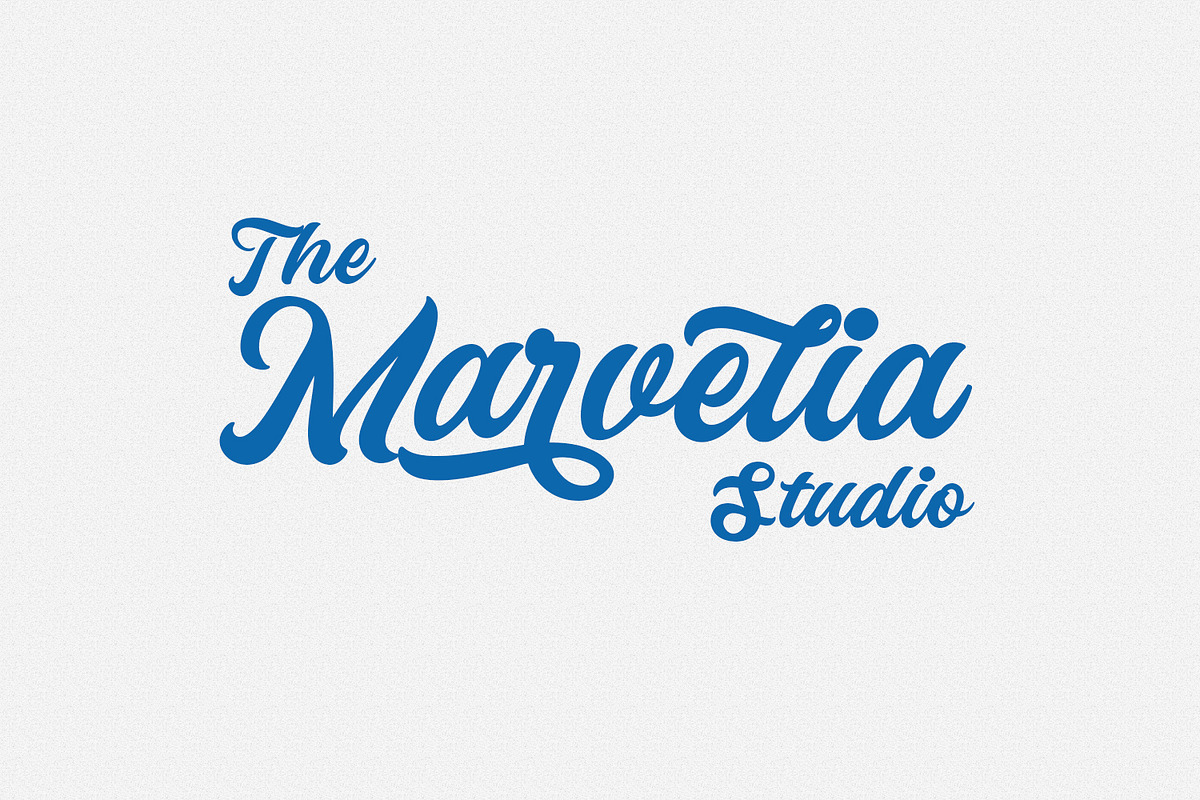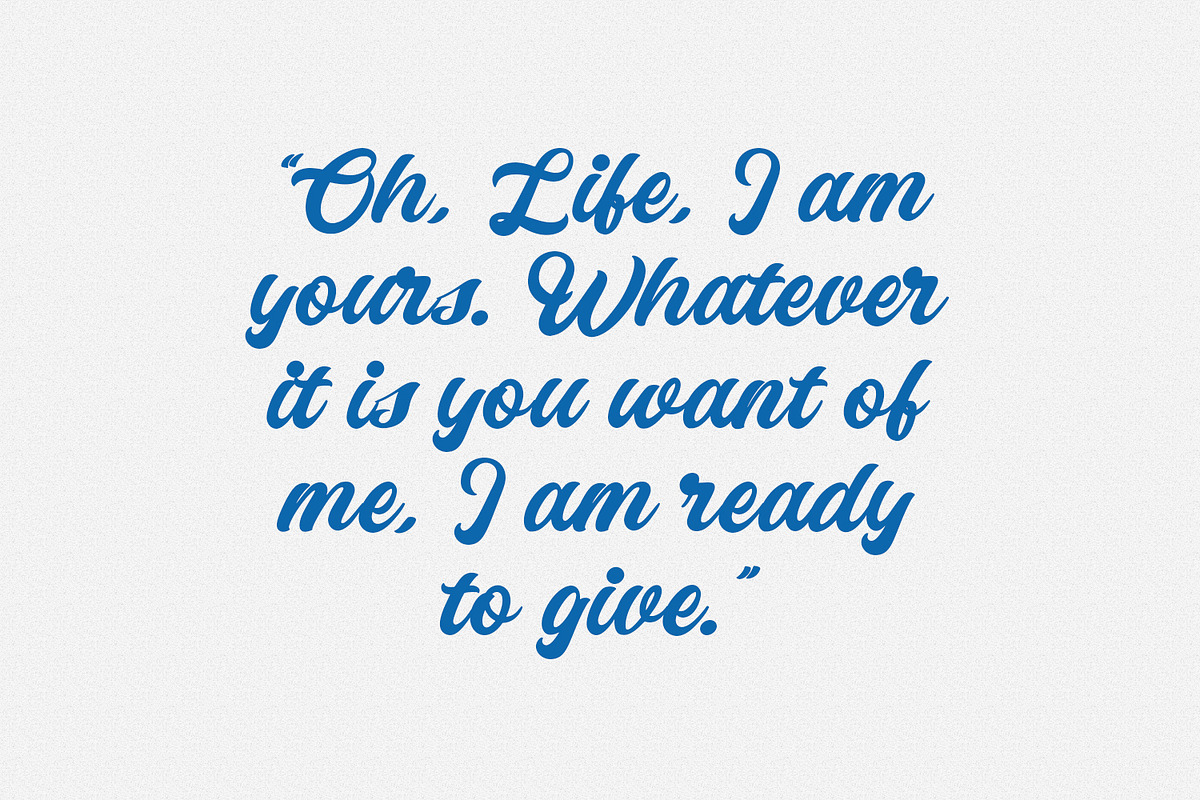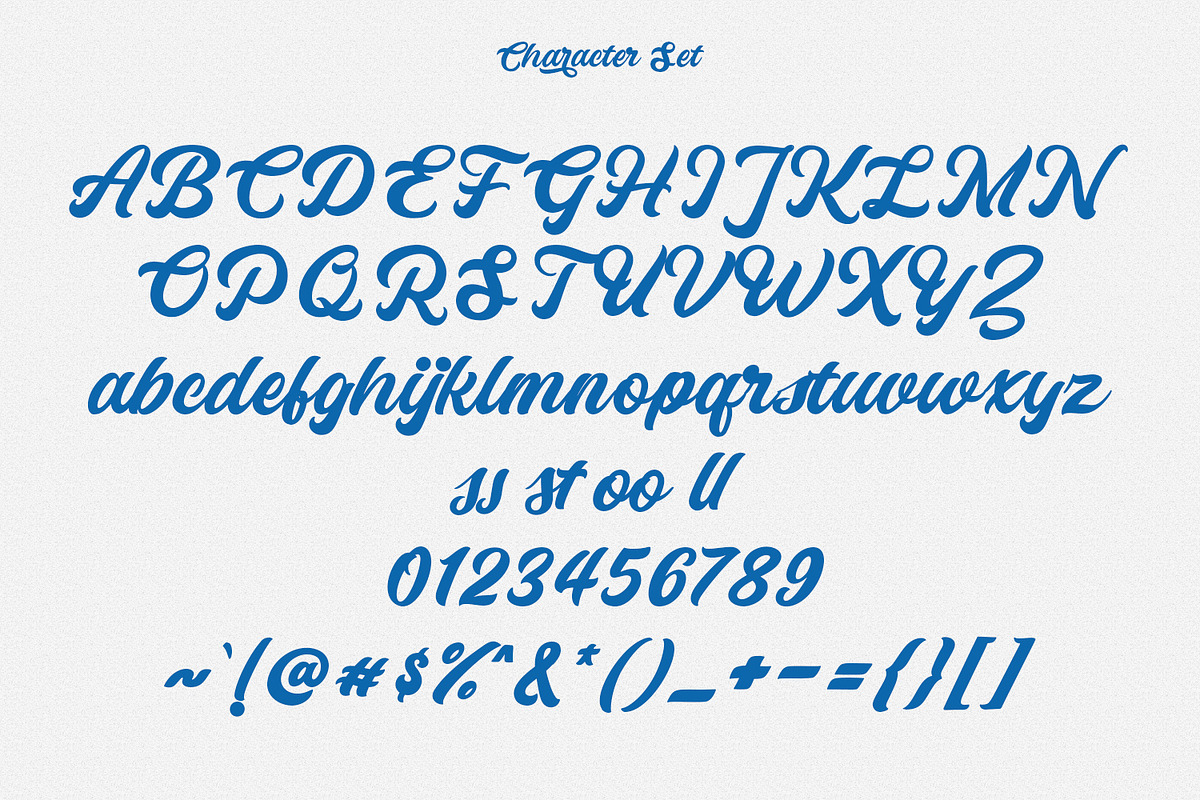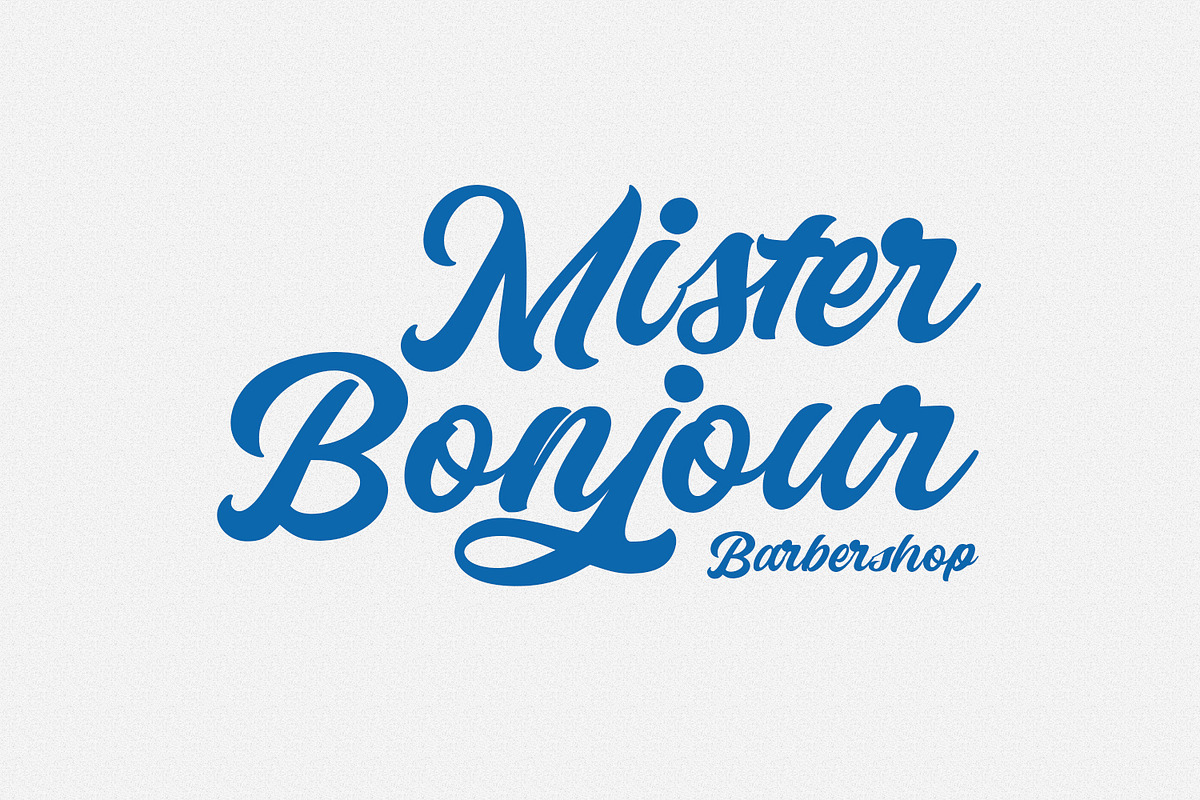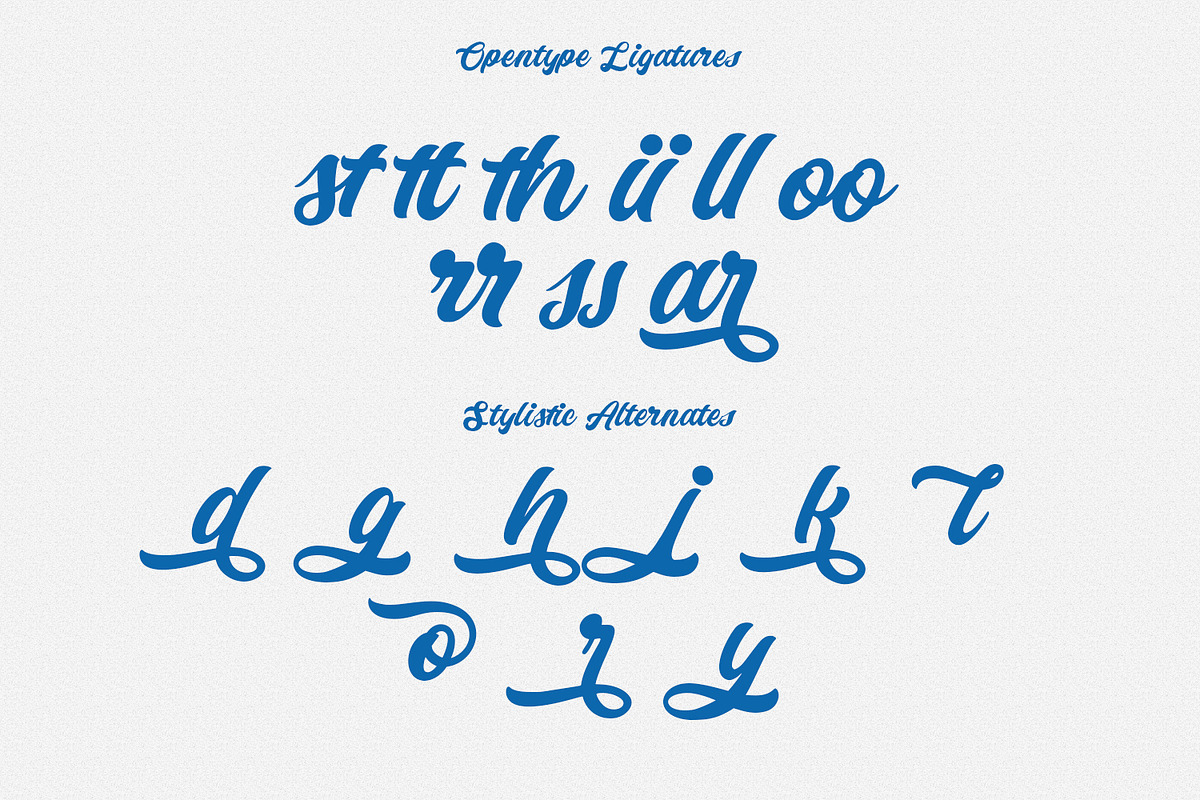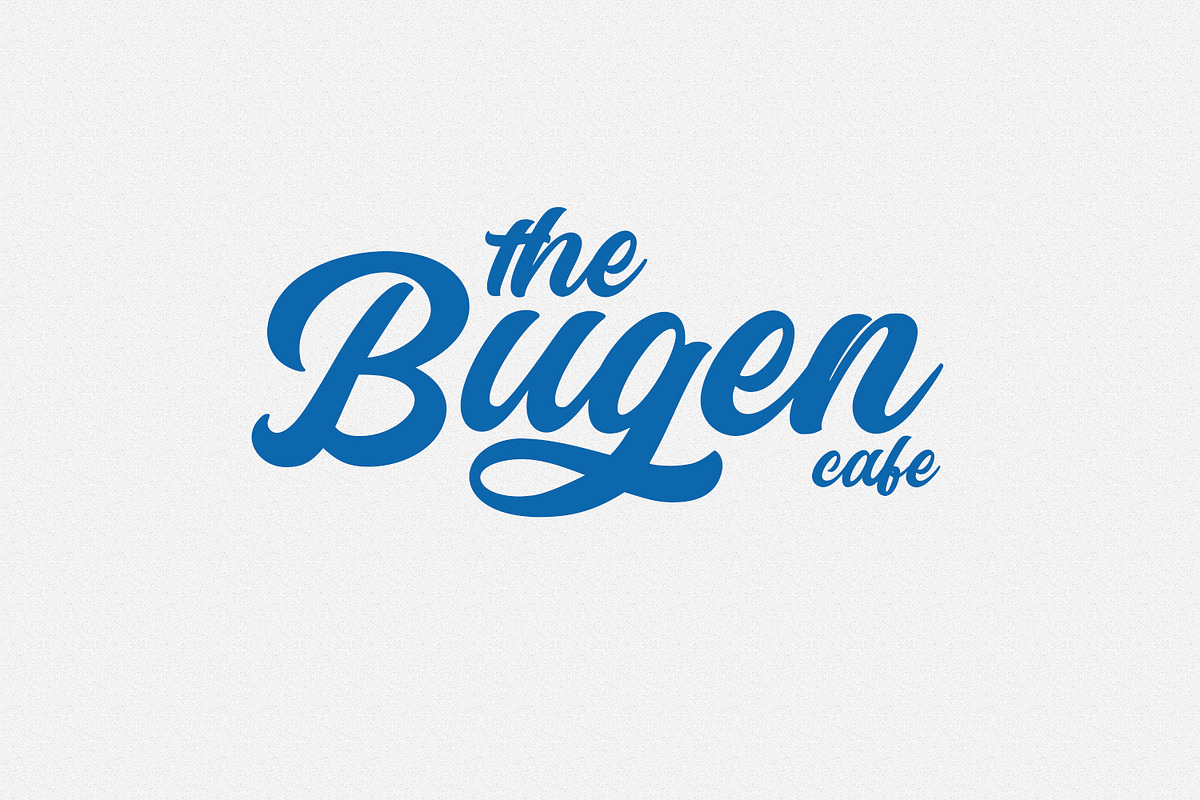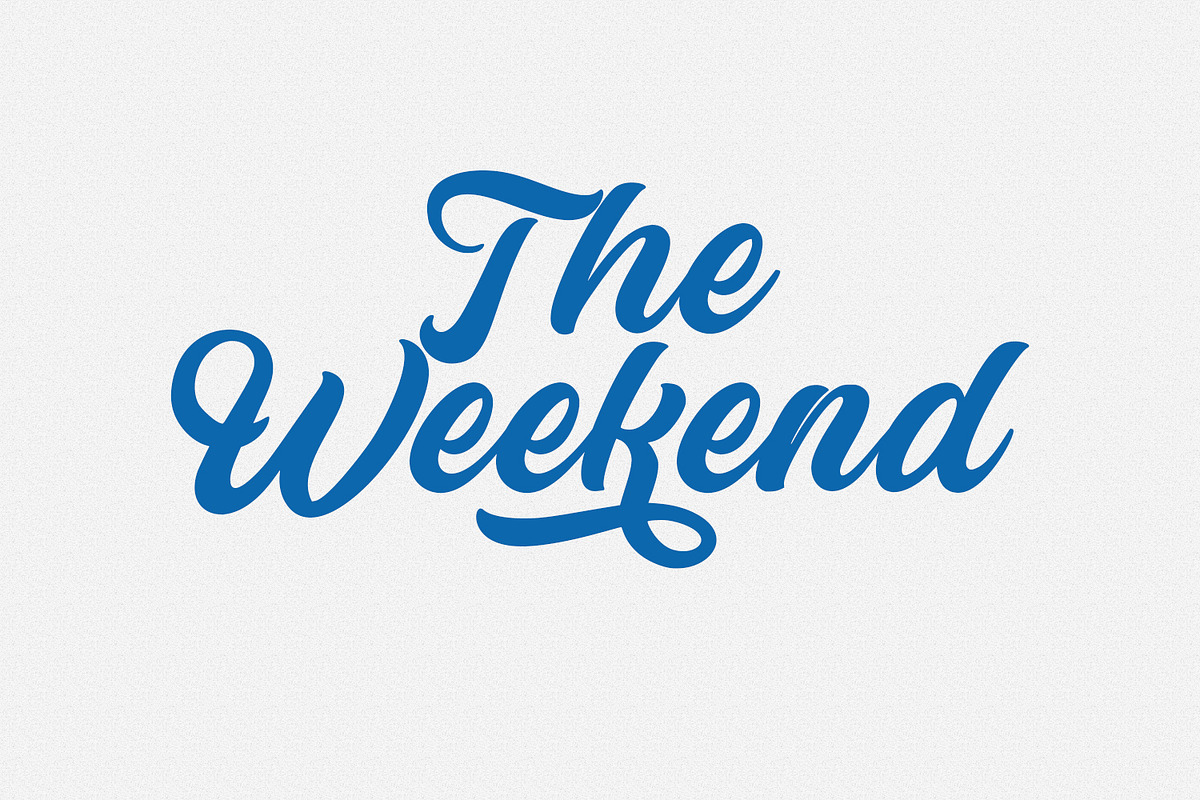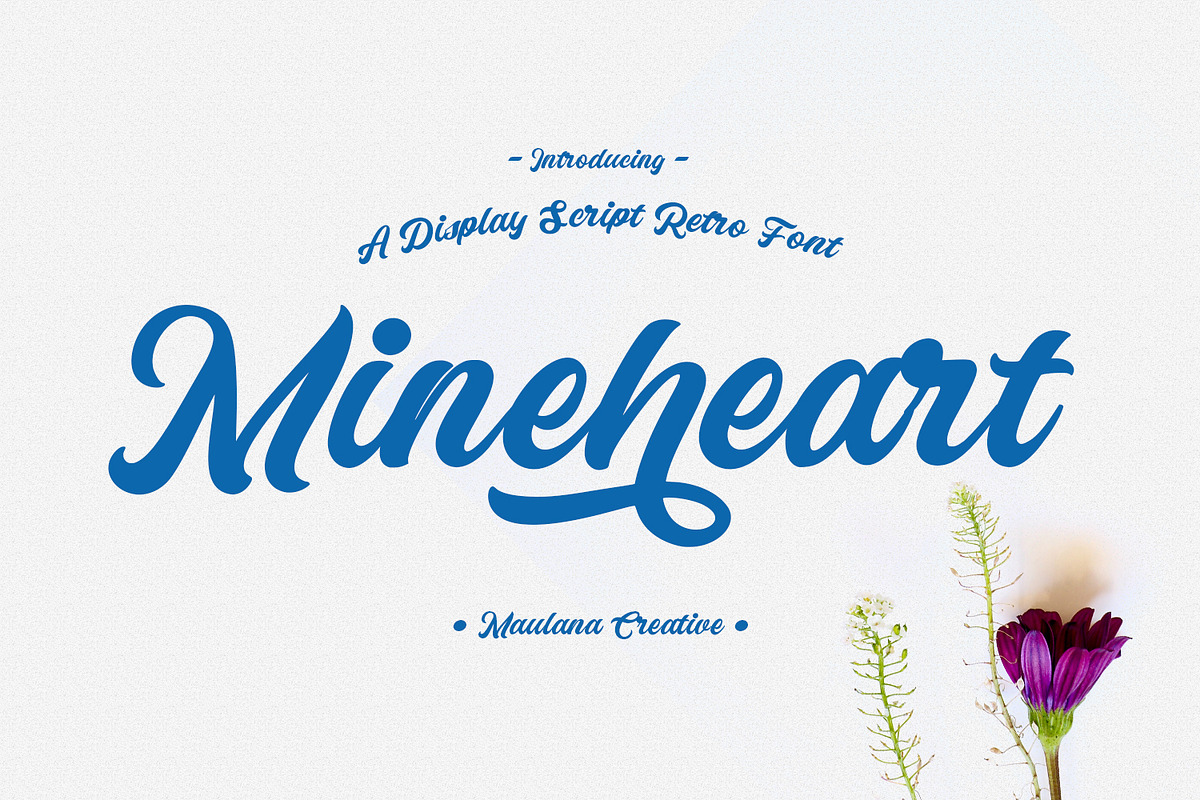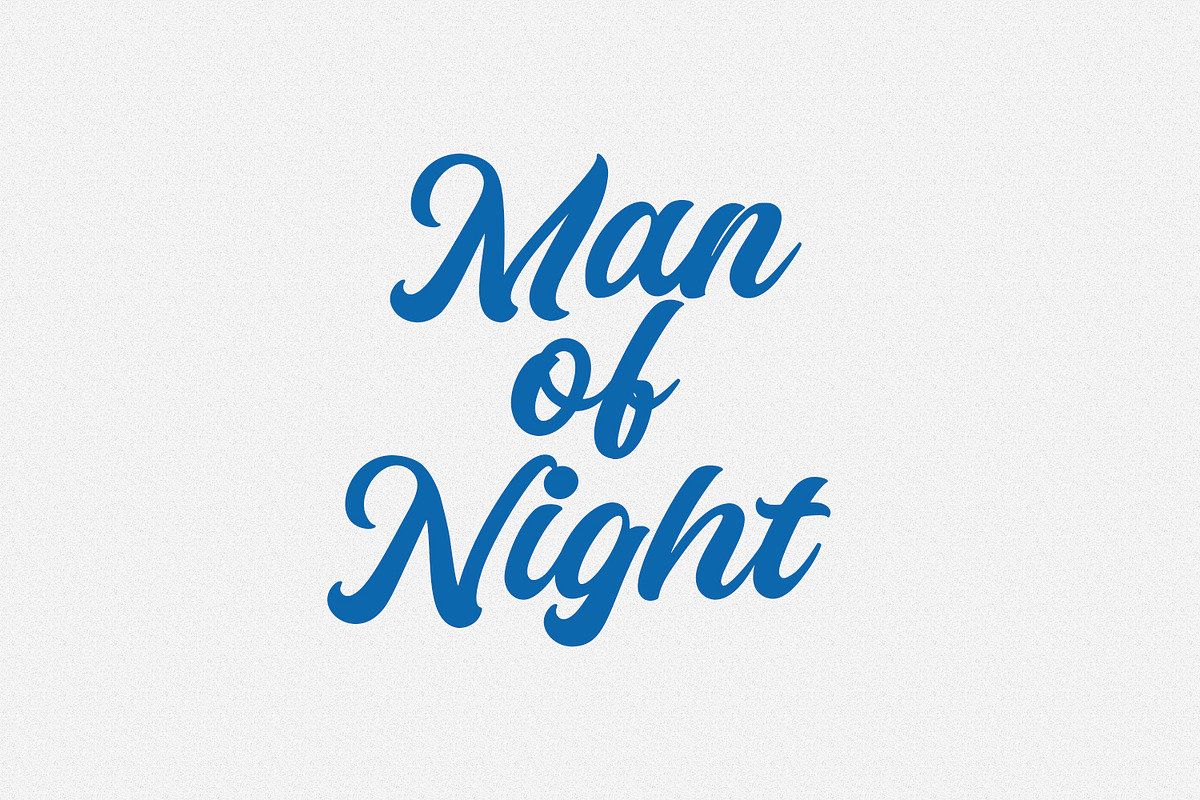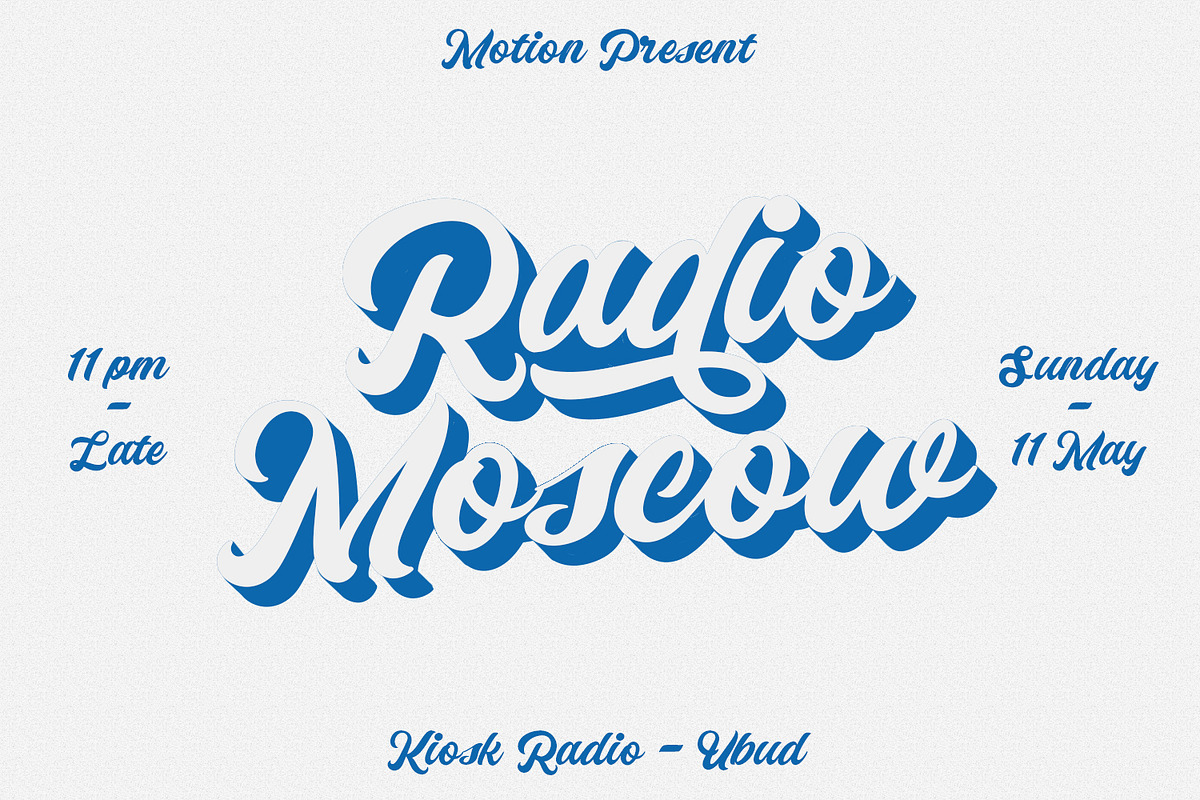
Mineheart Retro Script Font
Mineheart is a retro script font. With medium contrast stroke, fun character with a bit of ligatures and alternates. To give you an extra creative work. Mineheart font support multilingual more than 100+ language. This font is good for logo design, Social media, Movie Titles, Books Titles, a short text even a long text letter and good for your secondary text font with sans or serif. Make a stunning work with Mineheart font. What you get: – Mineheart (TTF) – Mineheart (OTF) Cheers, Maulana Creative